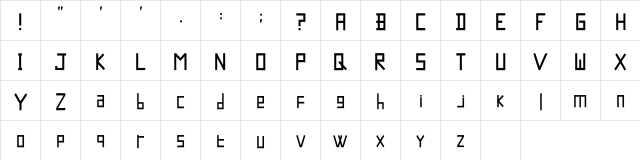
Kotak Jr Bit Regular
Design Context for Kotak Jr Bit Typeface
Kotak Jr Bit offers clean, dependable letterforms without strong stylistic allegiance, making it a practical choice for designers who need flexibility.